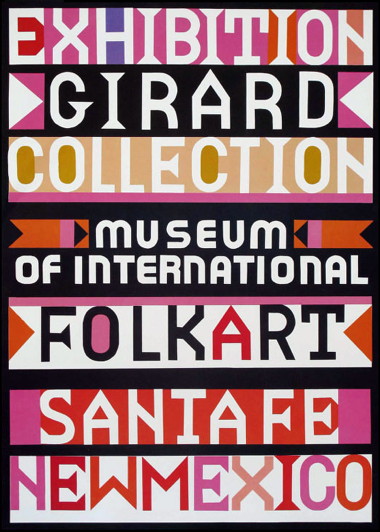
• Personal homage to one of the many excellent alphabets created by the great north american-italo designer Alexander 'Sandro' Girard (1907-1993). Mixing old style and a bit of new. All UC, with some alternatives in the LC.
Personal homage to one of the many excellent alphabets created by the great north american-italo designer Alexander 'Sandro' Girard (1907-1993).
Mixing old style and a bit of new.
All UC, with some alternatives in the LC:
e = another E,
f = another E,
n = another N,
r = another R,
s = another T,
t = another T,
x = another X,
etc (try all, please).
Here you are the original poster.
The font comes alive in the sample.
I agree, the sample shows exactly the spirit of the time and a great celebration of the man's achievements. 10/10 given already (shame we can't give a note once every months)